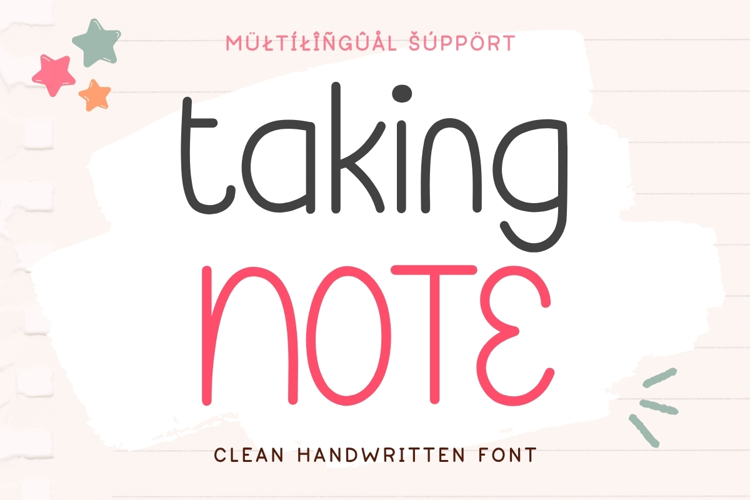
Note Taker Sans
Introducing Note Taker Sans, a cute handwriting font perfect for digital planners, note taking, and more.
Note Taker includes:
- Western European language support - English, French, Spanish, Portuguese (Brazil), Portuguese (Portugal), Italian, German (Germany), German (Austria), Dutch, Danish, Swedish, Norwegian (Bokmål and Nynorsk), Finnish, Icelandic, Irish, Welsh